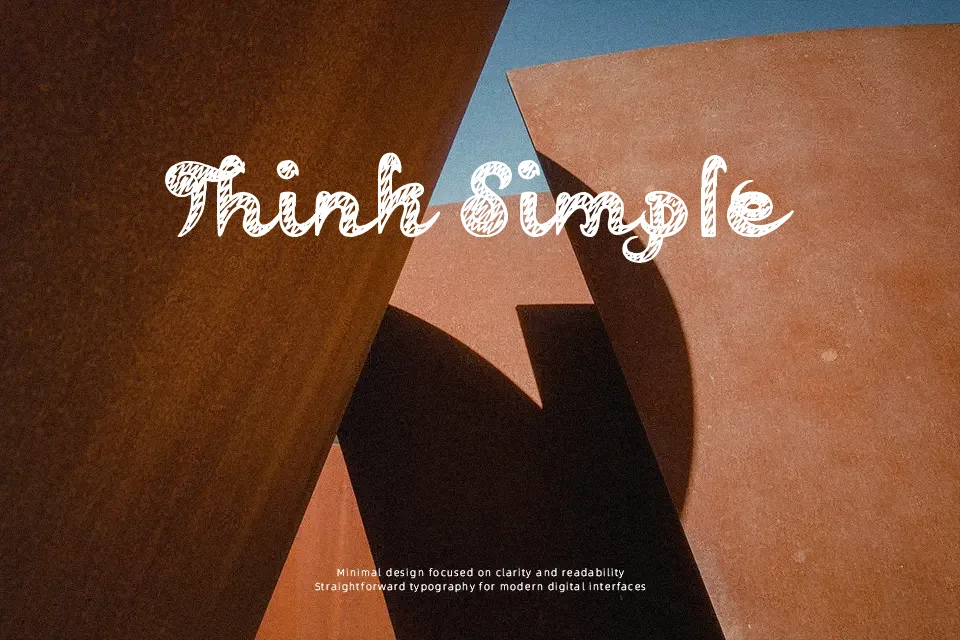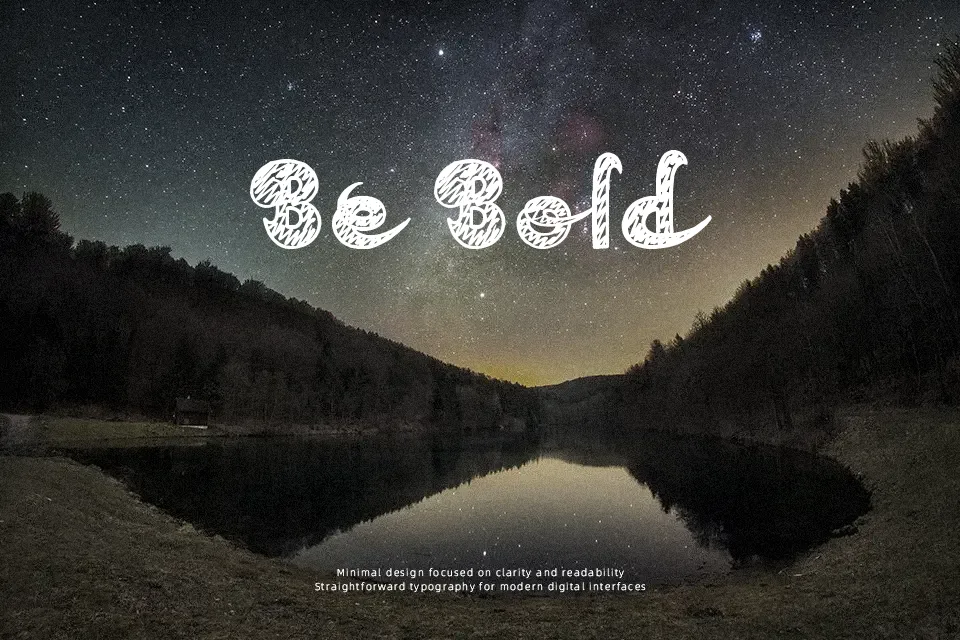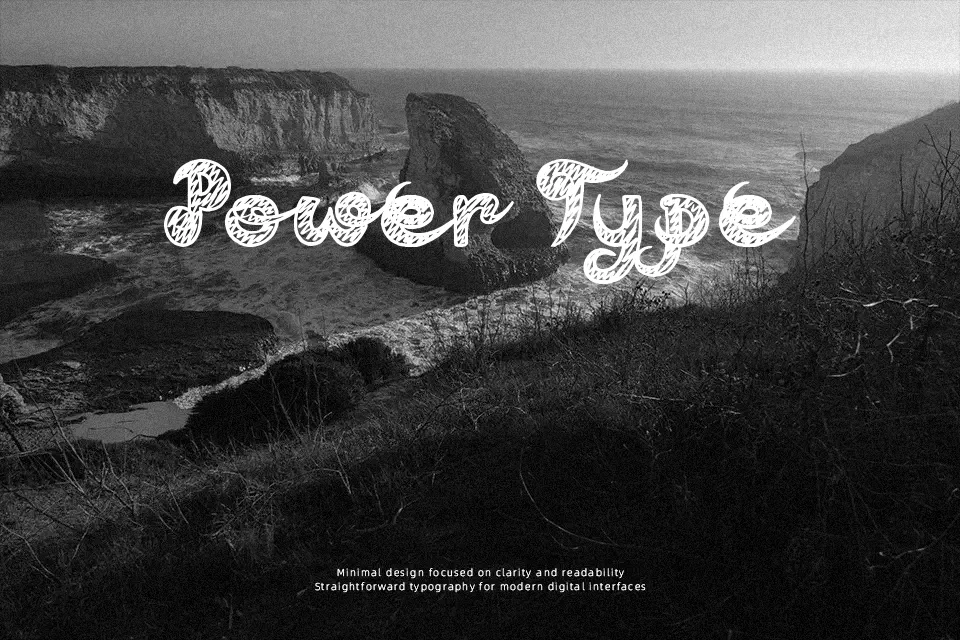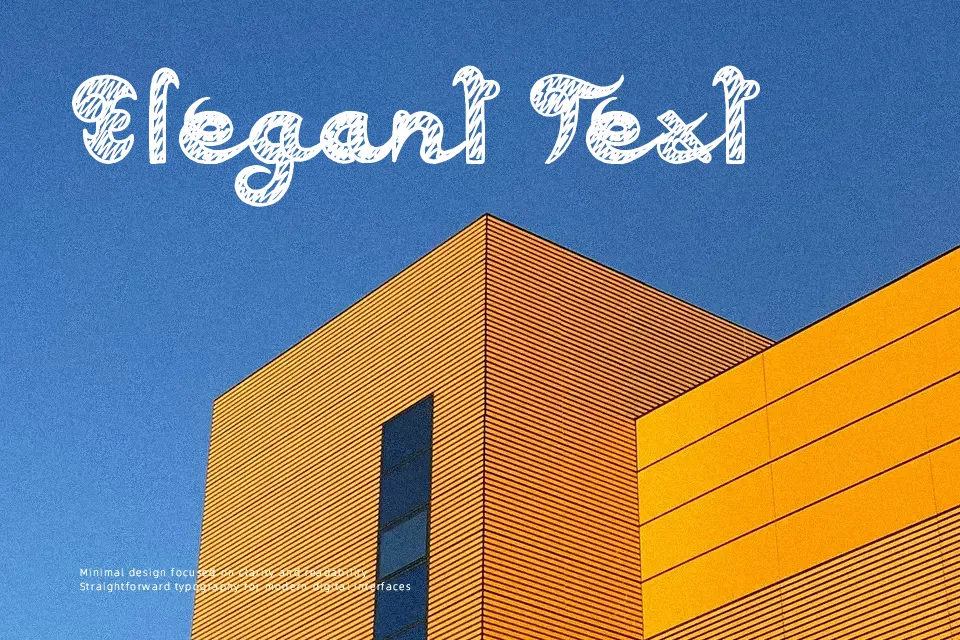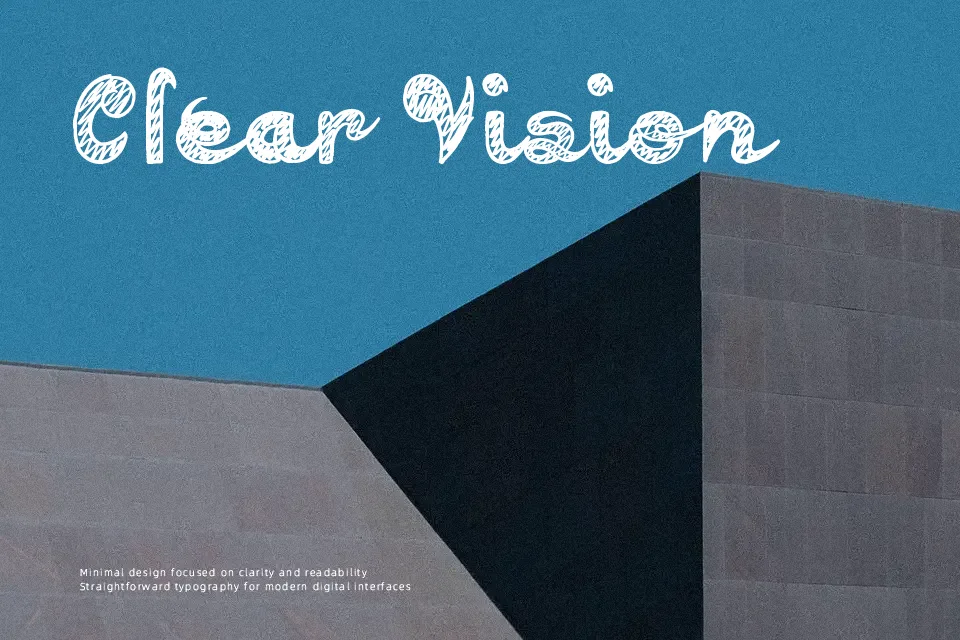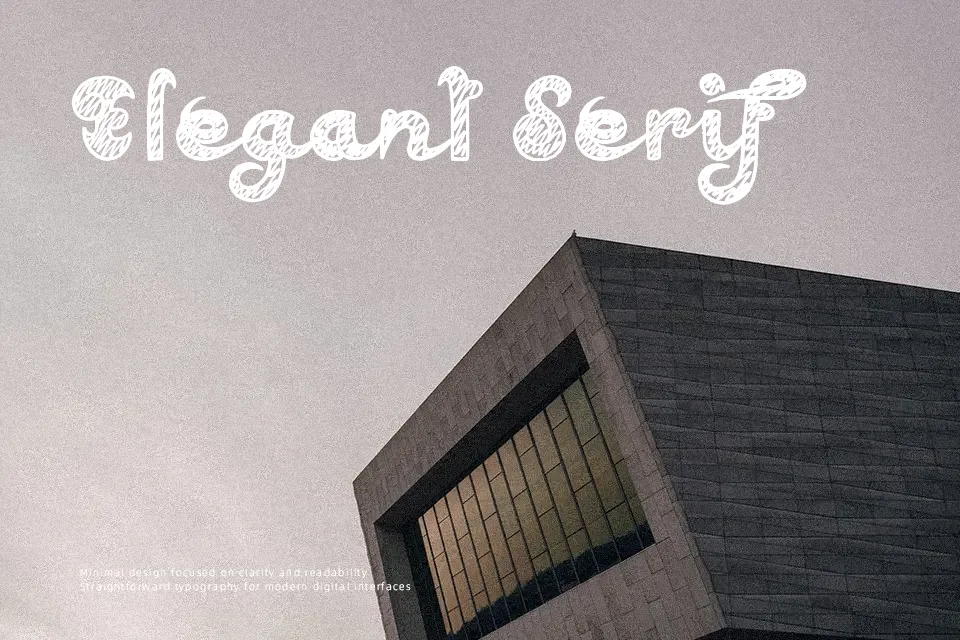
Teenage Dreams Font
Teenage Dreams Font features casual, handwritten brush strokes defined by energetic line work, variable pressure, and fluid character connections. Across short phrases and display titles, the loose proportions and spontaneous rhythmic spacing establish an approachable, expressive personality that grabs immediate attention. The letterforms remain legible when set at prominent scale for event posters, apparel graphics, and packaging headers. However, the irregular stroke widths and relaxed tracking reduce visual comfort in continuous reading environments. Small interface labels and dense editorial compositions lose clarity quickly, making the typeface far more effective for compact, punchy display accents.
Best For: music festival posters, casual apparel graphics, merchandise packaging, video title cards
Not Ideal For: dense editorial paragraphs, technical documentation, corporate financial reports, small user interface captions
Perfect for branding, headline, and music, with a creative and brush style.